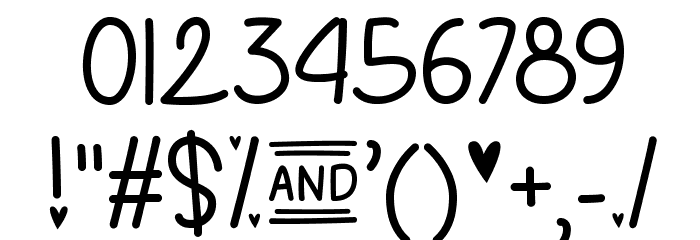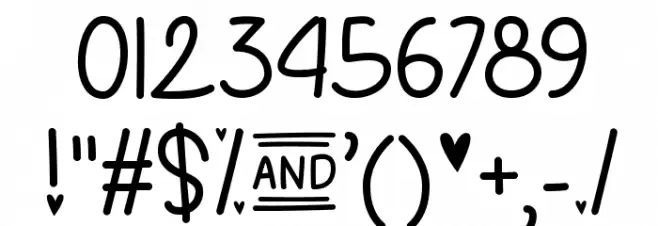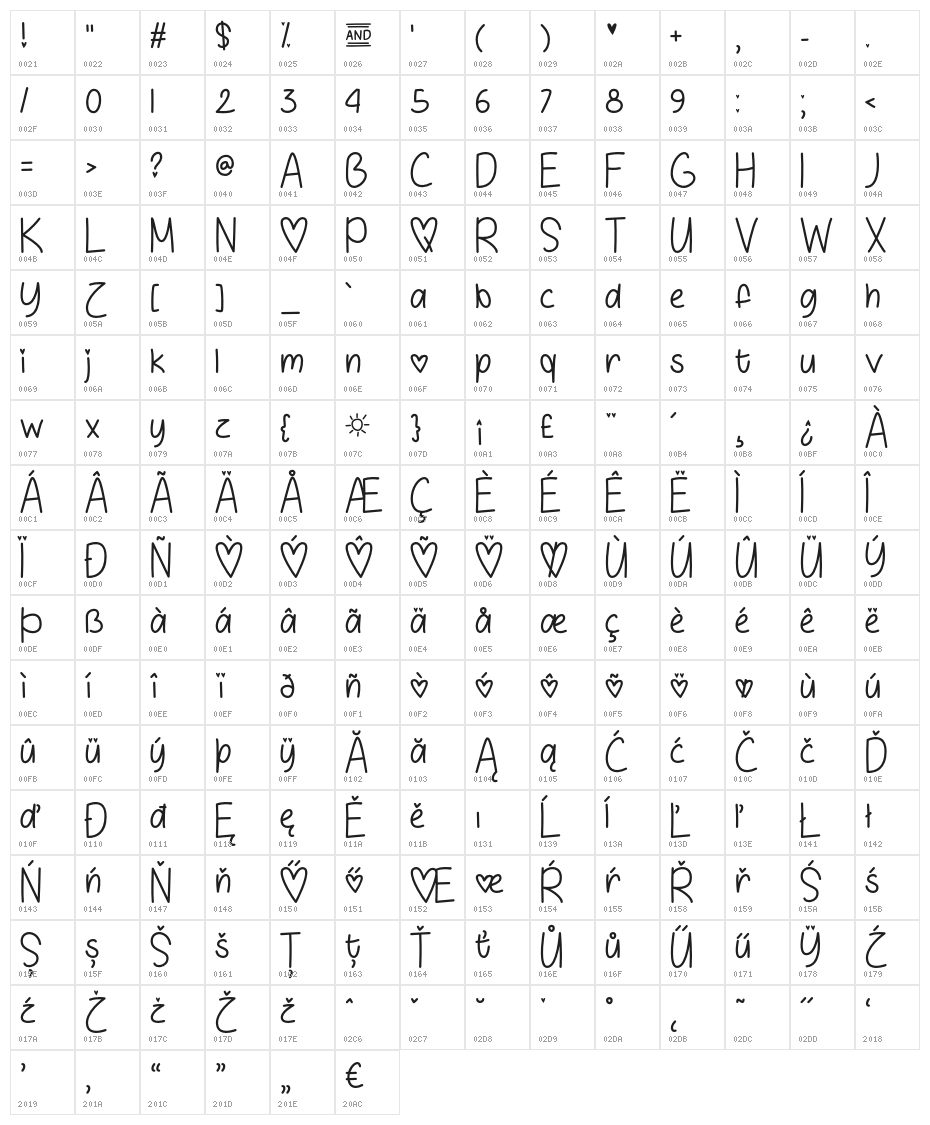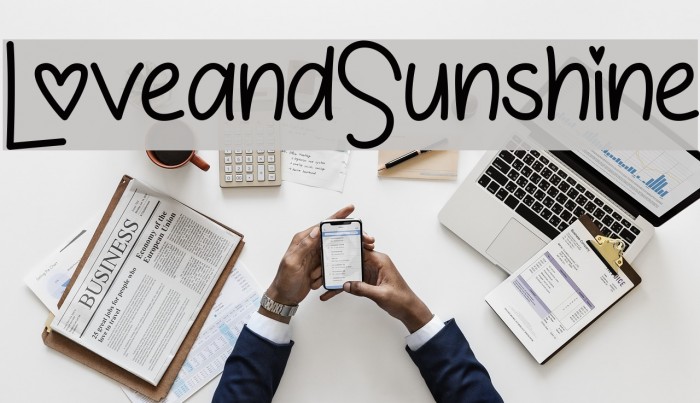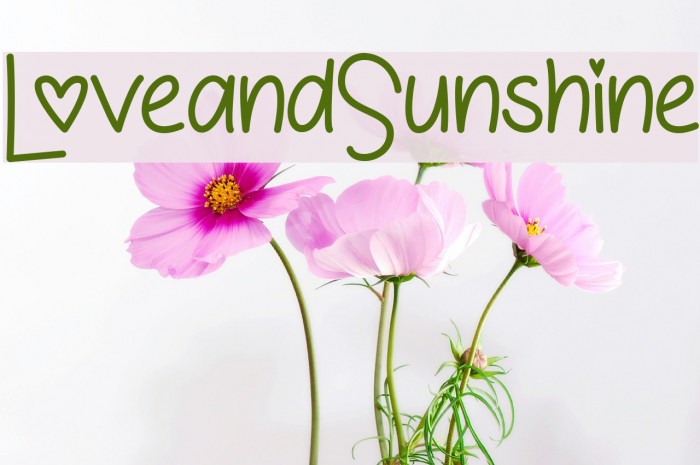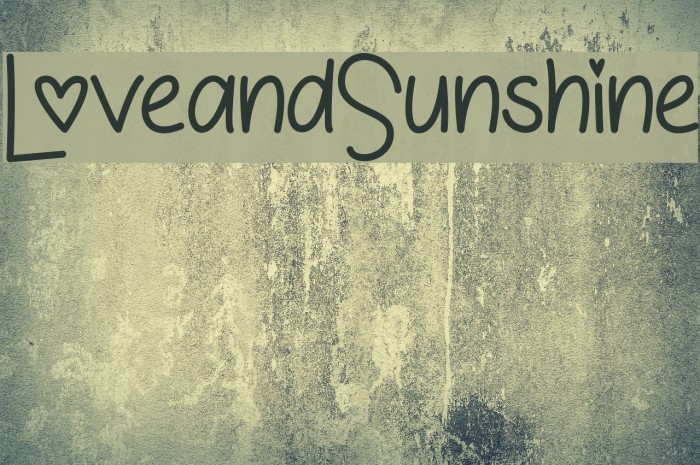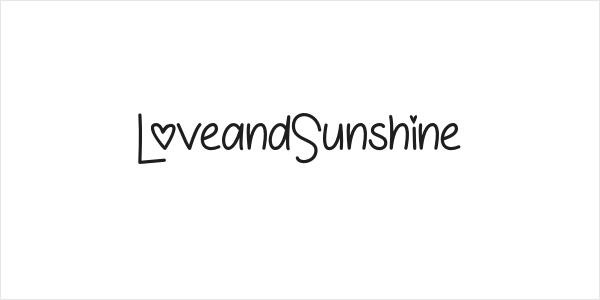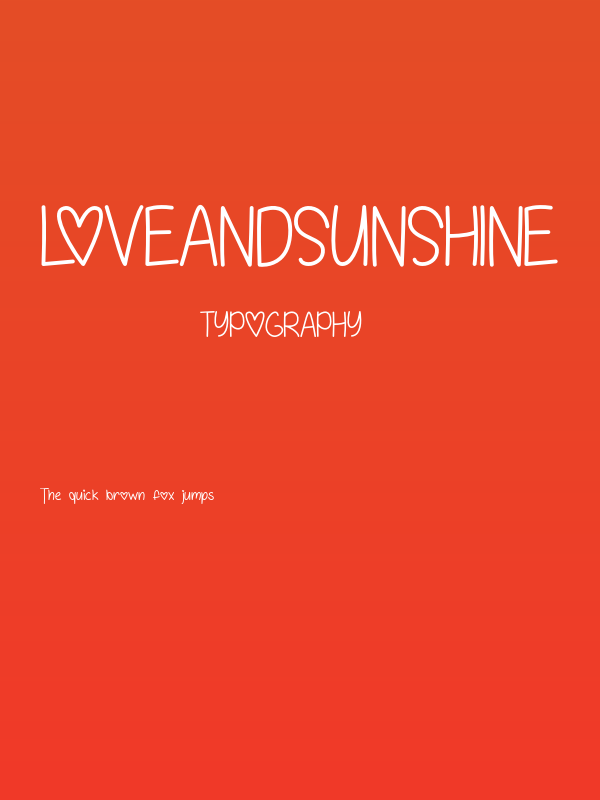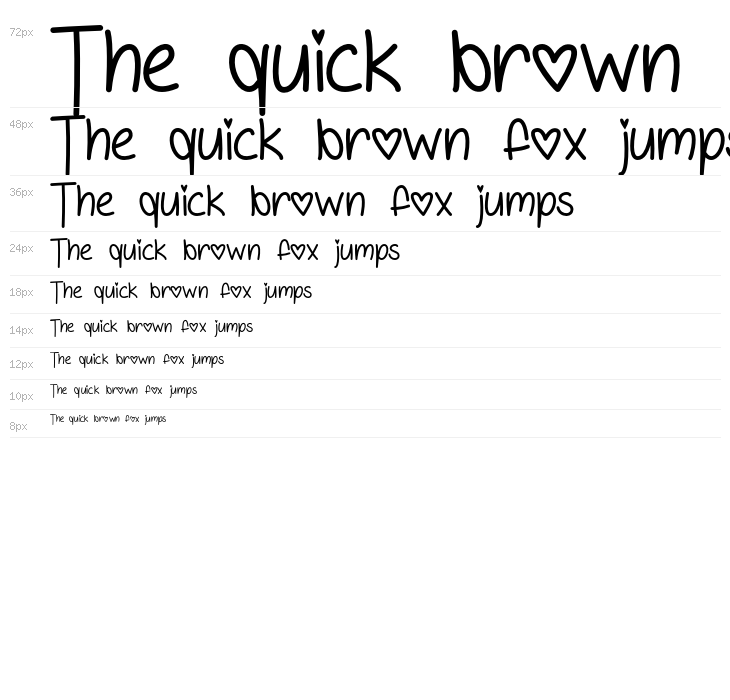
LoveandSunshine Font
LoveandSunshine Description
This playful and whimsical font features a handwritten style with a charming and casual appearance. The uppercase letters are tall and slightly narrow, with unique heart-shaped elements incorporated into some characters, adding a touch of romance and fun. The lowercase letters maintain a consistent flow, with rounded edges and a friendly demeanor. The numerals are clear and easy to read, matching the overall playful theme. Special characters are creatively designed, with some incorporating heart motifs, enhancing the font's joyful and lively personality.
| Proposed Projects | Ideal for greeting cards, wedding invitations, playful branding, and children's book covers. |